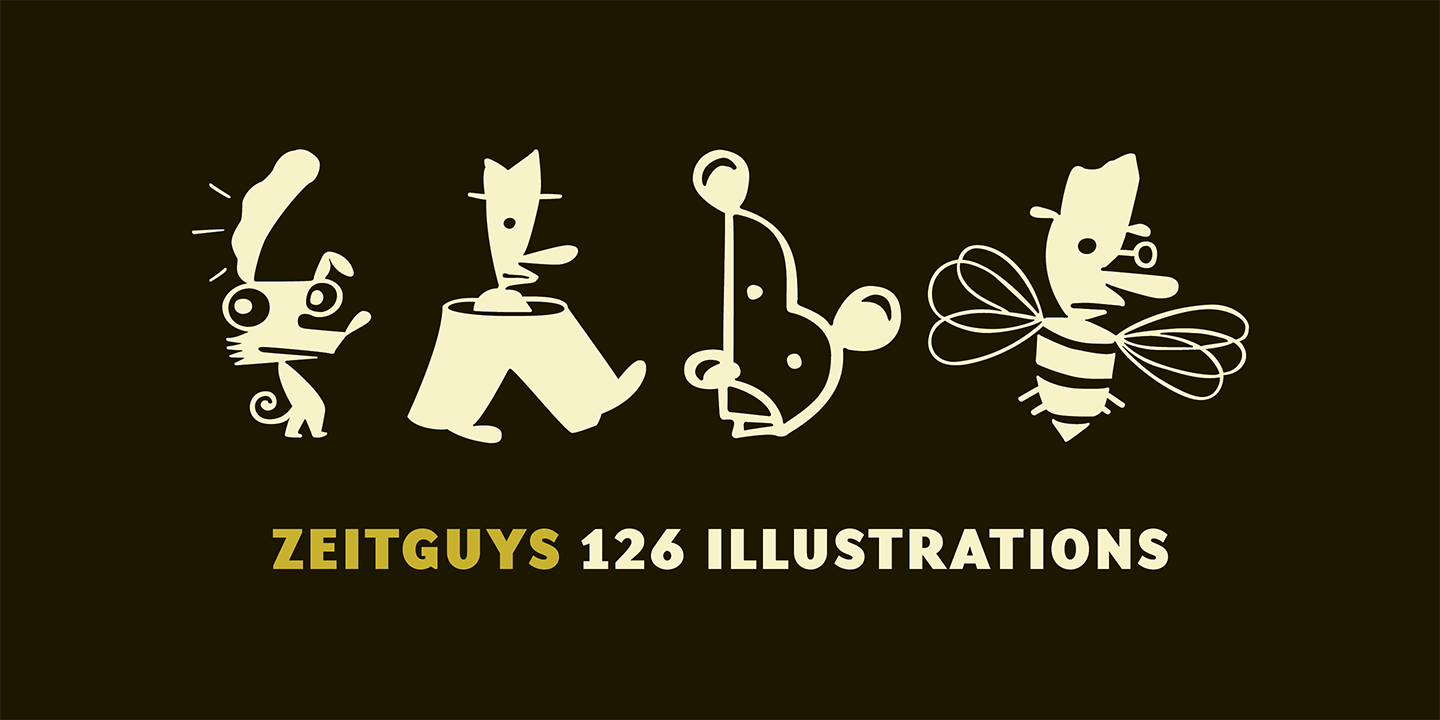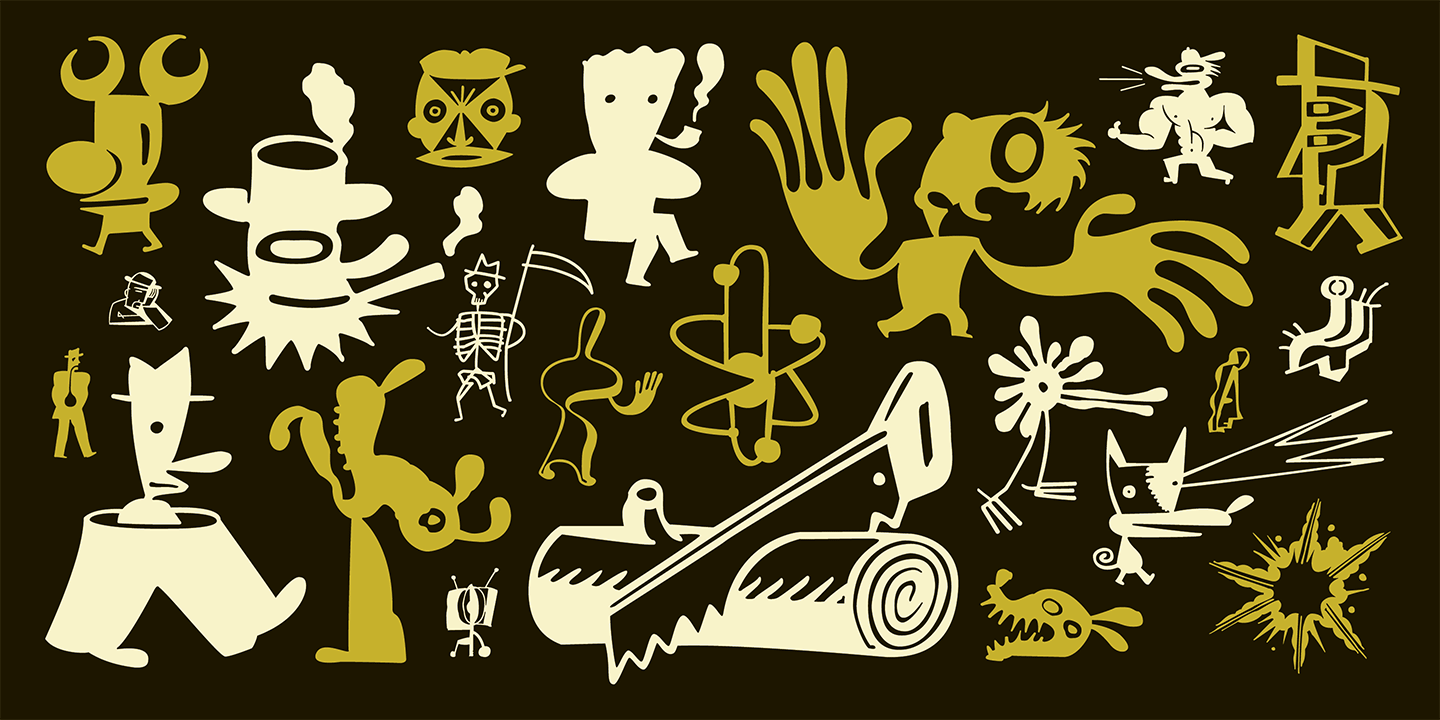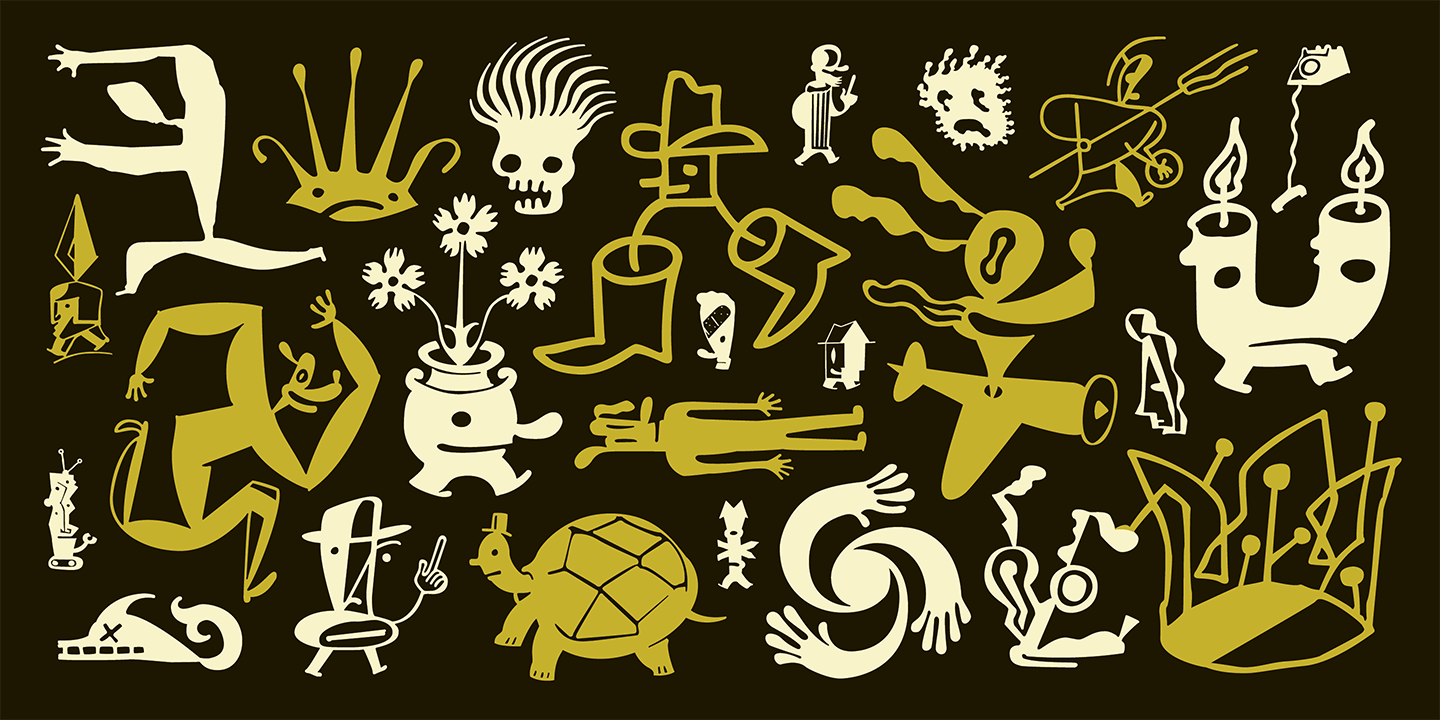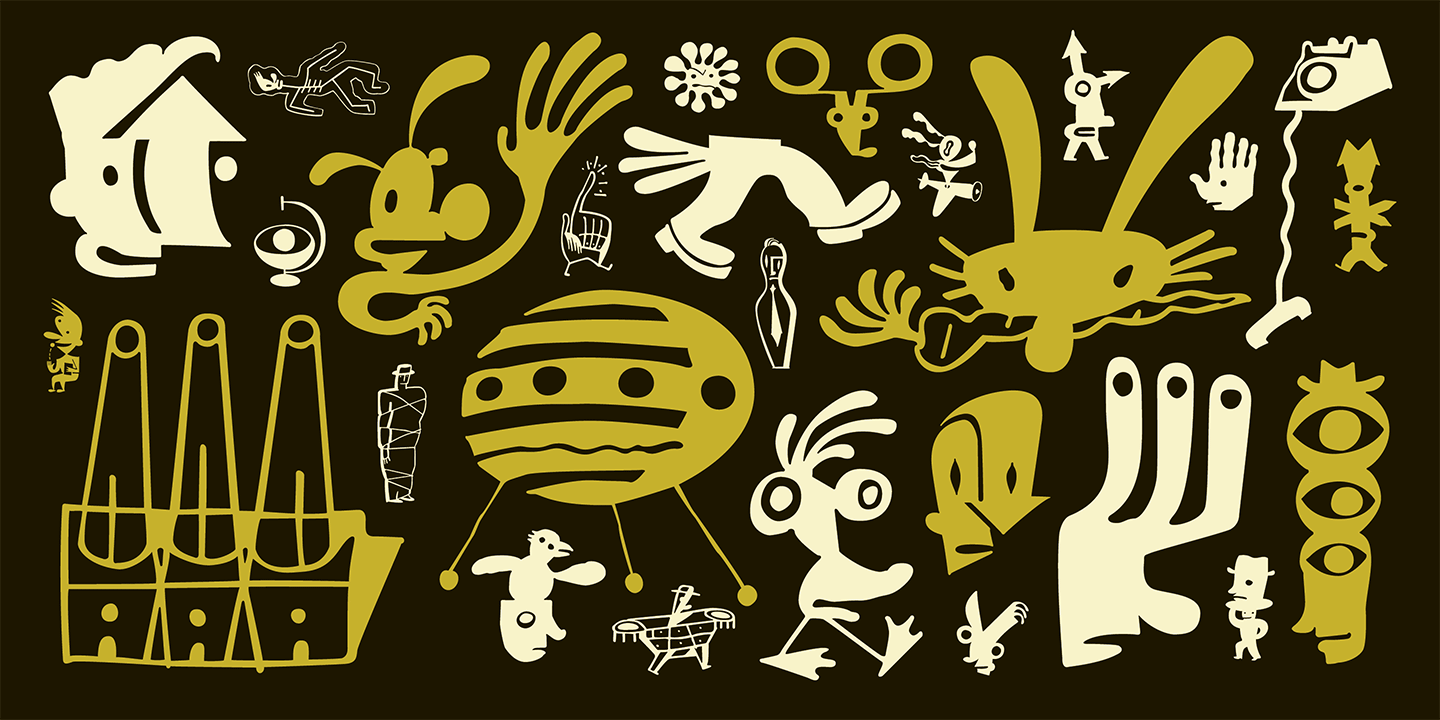
Designed by Bob Aufuldish and Eric Donelan in 1994. More...
With these Zeitguys illustrations, Donelan and Aufuldish were interested in creating a conceptual set of dingbats. At the time, in the early 90s, it seemed to them that the dingbat and clip art fonts available were extremely literal in their meaning or had no meaning at all. They were a piece of cake, or a car, or a little snowflake. They wanted to make a set of icons where meaning was implied where there was none intended. That way, the meaning of the icons would change, over time, by the context in which they appeared, and by the images and texts in their proximity. After all, what does a bee with a hat really mean? The creators are anxious to find out, as the mind abhors a vacuum.